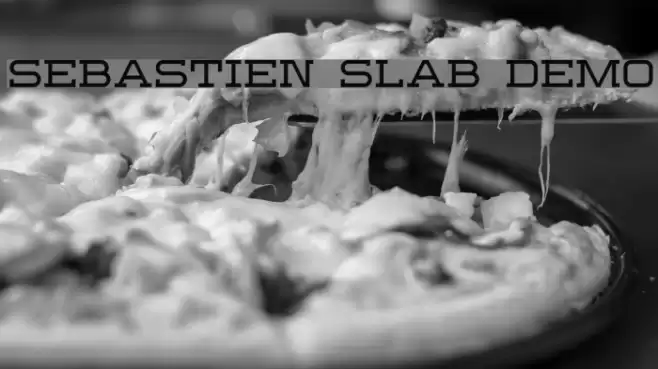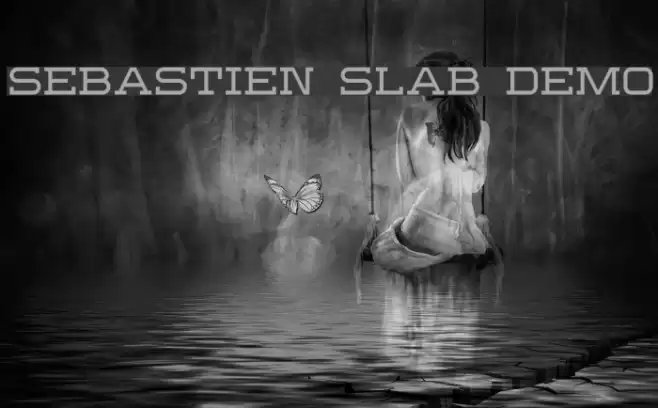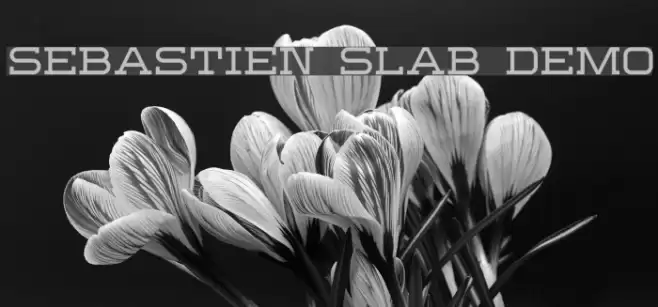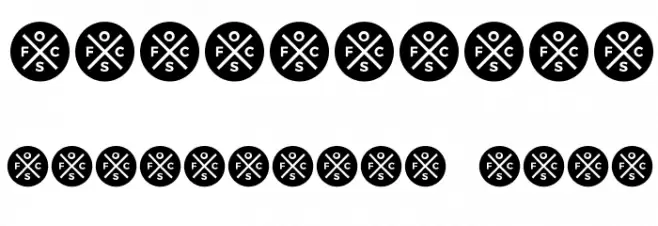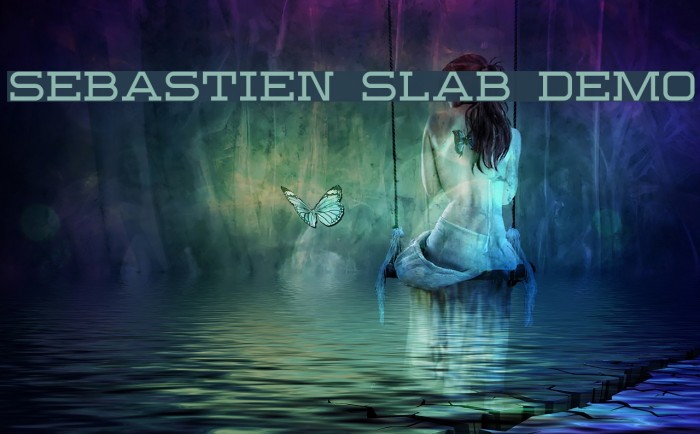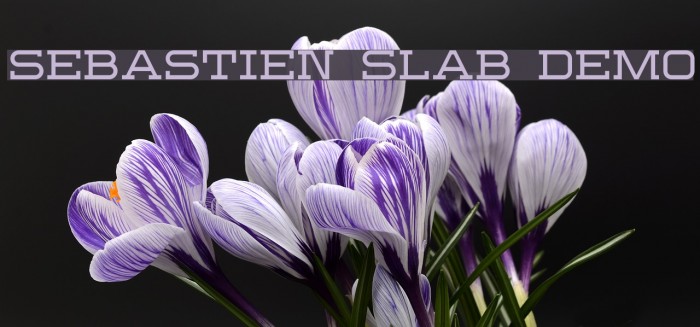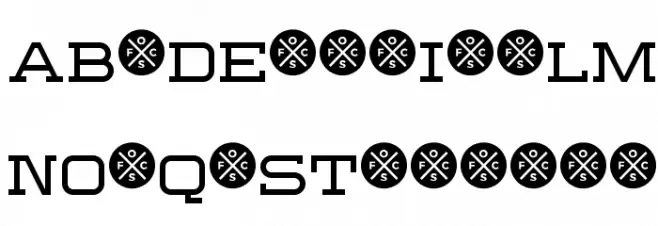
Sebastien Slab Demo Font
Sebastien Slab Demo Description
This font features a bold and structured design with slab serif characteristics. The letters are well-defined with thick, block-like serifs that give it a strong and authoritative appearance. The uppercase letters are prominent and evenly spaced, while the lowercase letters maintain a consistent style that complements the overall design. The numbers are clear and legible, matching the boldness of the alphabetic characters. Special characters are included, maintaining the same robust style. This font is ideal for making a statement, with its commanding presence and clarity.
A bold slab serif font with strong, structured characters from Uncategorized fonts.
- Proposed Projects: Ideal for headlines, posters, branding, and any project requiring a bold, authoritative typeface.